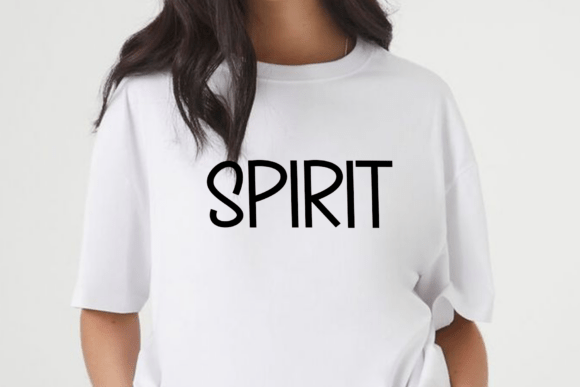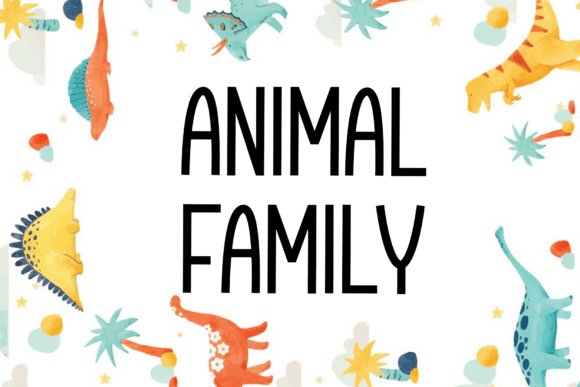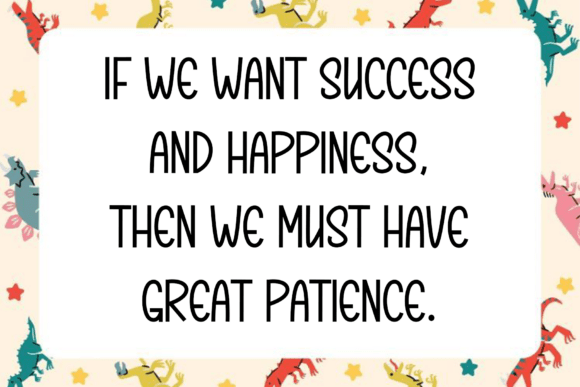
Introduction to Book Dinosaur Font
Book Dinosaur is a smart and minimal handwritten sans-serif font with rounded corners and unique letterforms, giving it a soft yet striking appearance.
Perfect for branding, social media content, logos, and digital applications, this font strikes a balance between professionalism and creativity, adding a modern edge to any project .
Key Features of Book Dinosaur Font
Why Choose Book Dinosaur Font?